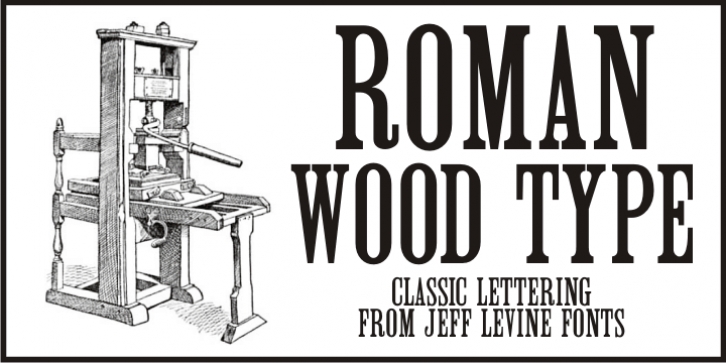
Roman Wood Type JNL is a display slab font published by Jeff Levine Fonts.
Roman Wood Type JNL is based on a partial set of wood type in the style of Clarendon Condensed that was seen in an online auction.